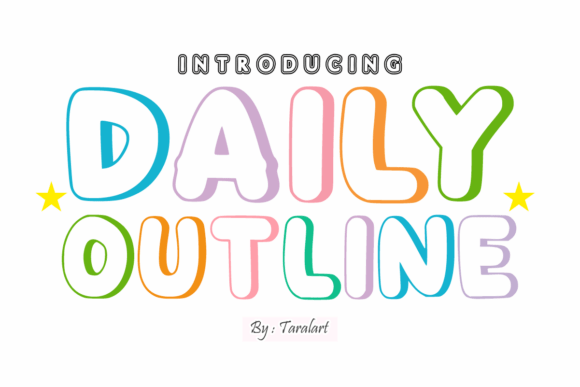
Introducing Daily Outline Font: The Fun and Colorful Display Font for Engaging Projects
Are you looking for a font that can add a burst of joy and personality to your projects? Look no further than Daily Outline Font, a fun and colorful display font that’s perfect for creating engaging and playful designs. With its bold, bubbly shapes outlined in playful colors, Daily Outline Font is ideal for projects that need to be bright, friendly, and engaging.
What Makes Daily Outline Font Special?
- Soft, Rounded Letterforms: Daily Outline Font features soft, rounded letterforms that give it a cartoonish yet stylish look.
- Clean Outlines: The font’s clean outlines add a touch of sophistication and make it easy to read.
- Outlined Design: The outlined design of Daily Outline Font makes it versatile and easy to use in a variety of projects.
- Playful Colors: The font’s playful colors add a burst of fun and energy to any design.
Perfect for Kids’ Content and Playful Branding
Daily Outline Font is especially great for kids’ content, classroom materials, school posters, and playful branding. Its charm lies in its ability to bring a sense of fun and playfulness to any design, making it perfect for:
- Children’s books
- Educational apps
- Greeting cards
- Birthday party invites
- Social media graphics
- Toy packaging
- Label design
- Scrapbooking elements
Design Tips for Using Daily Outline Font
Here are some design tips for using Daily Outline Font:
- Use it as a Headline: Daily Outline Font is perfect for use as a headline or title font.
- Pair it with Solid or Filled Fonts: Pair Daily Outline Font with solid or filled fonts for contrast and layering.
- Experiment with Colors: Don’t be afraid to experiment with different colors and color combinations to add depth and interest to your design.
The Benefits of Using Daily Outline Font
So why choose Daily Outline Font for your next project? Here are just a few benefits:
- Engaging and Playful: Daily Outline Font is designed to be engaging and playful, making it perfect for projects that need to capture the attention of your audience.
- Versatile: The outlined design of Daily Outline Font makes it versatile and easy to use in a variety of projects.
- Easy to Read: Despite its playful design, Daily Outline Font is easy to read and understand.
In conclusion, Daily Outline Font is a fun and colorful display font that’s perfect for creating engaging and playful designs. With its bold, bubbly shapes outlined in playful colors, Daily Outline Font is ideal for projects that need to be bright, friendly, and engaging. Whether you’re creating kids’ content, classroom materials, or playful branding, Daily Outline Font is the perfect choice.